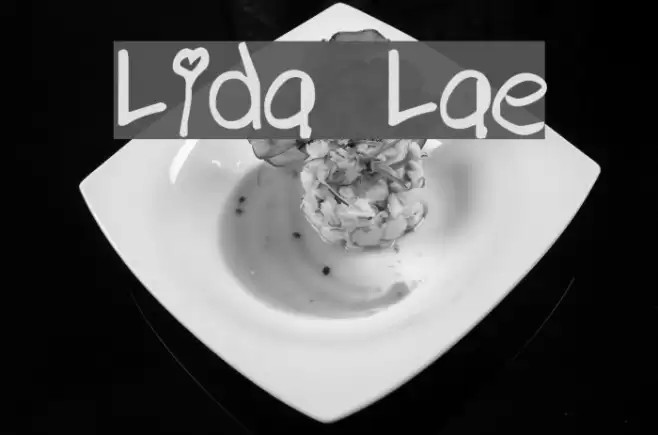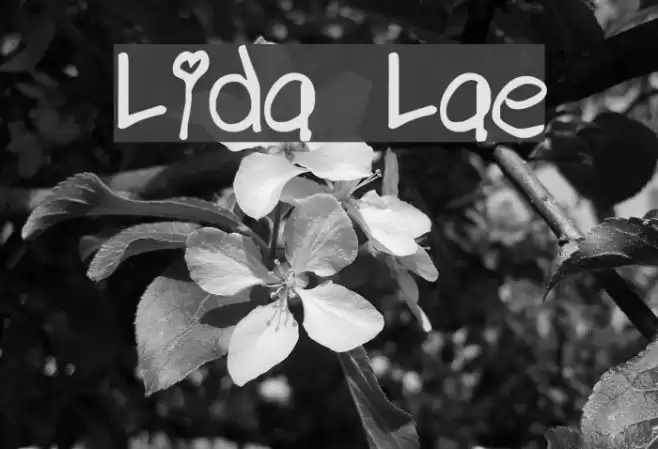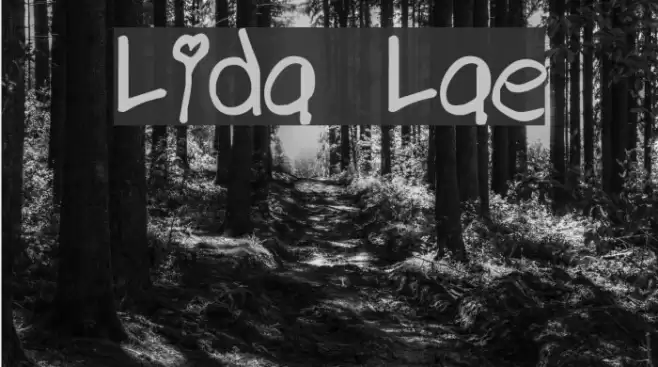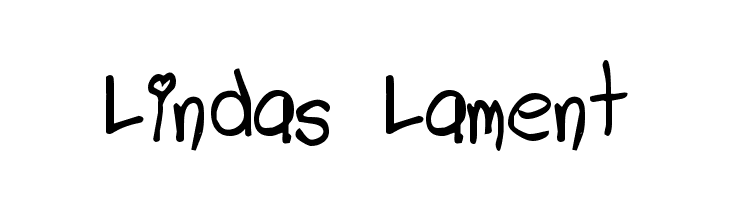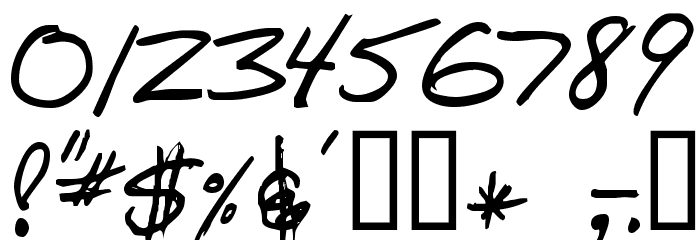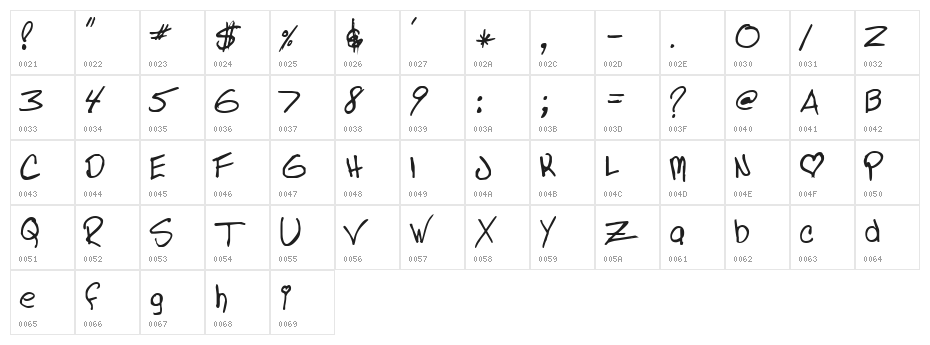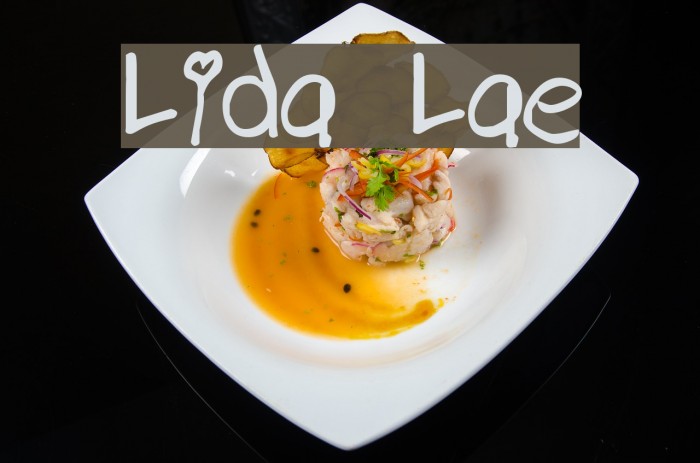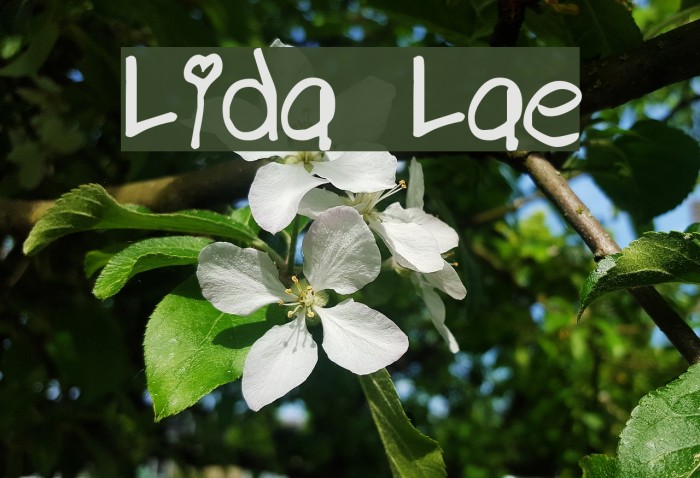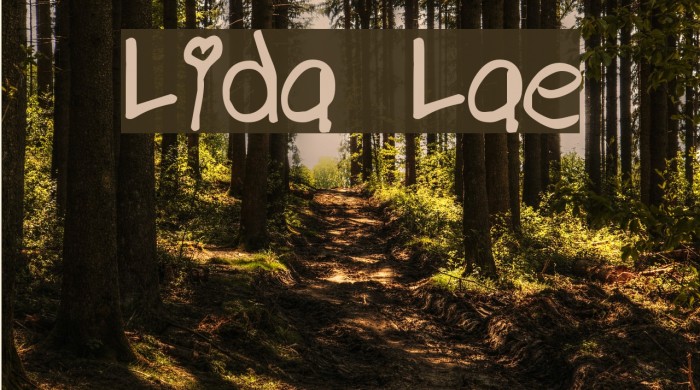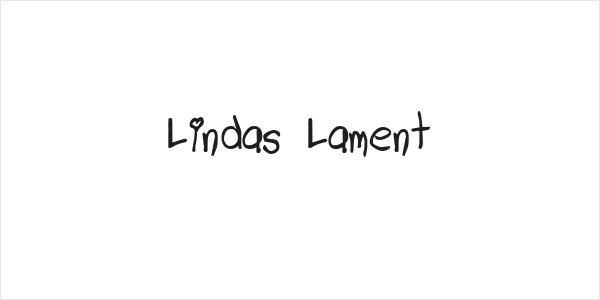
Lindas Lament Font
Lindas Lament Description
This font features a playful and whimsical handwritten style, characterized by its irregular and dynamic letterforms. The uppercase and lowercase letters exhibit a casual, freeform appearance, with some letters incorporating heart shapes, adding a unique and charming touch. The numerals and special characters maintain the same lively and informal aesthetic, making the font suitable for creative and expressive projects. The strokes are bold and uneven, contributing to its distinctive personality.
A playful, handwritten font with whimsical heart-shaped elements from Valentine's Day fonts.
- Proposed Projects: Ideal for greeting cards, children's book covers, playful branding, and DIY craft projects.
- Use Case: Logos, Headlines, Creative projects